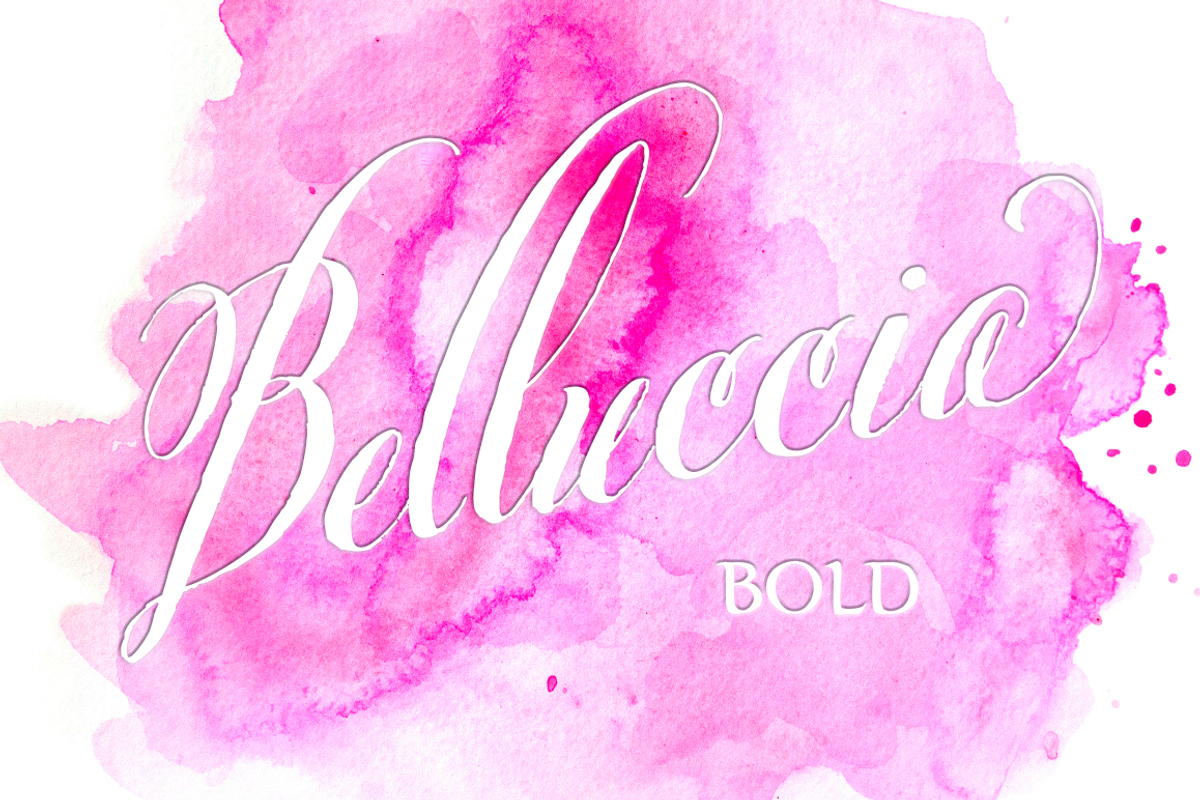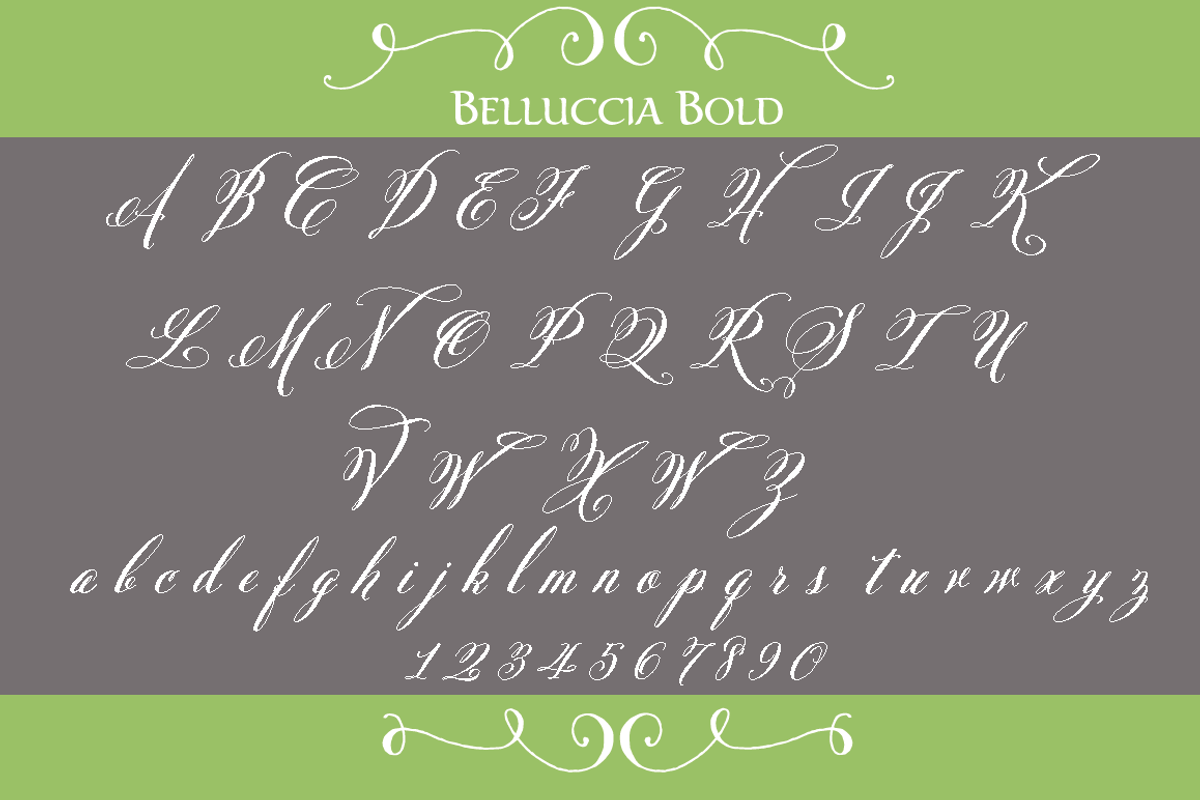
Belluccia Bold Font
Belluccia Bold Font by Debi Sementelli is a font selected for branding, posters, packaging, typography.
- Belluccia contains a total of 408 glyphs including one version of the Belluccia font alphabet and a basic set of flourishes and ornaments.
Why Belluccia Bold Font is worth a look
Belluccia Bold Font by Debi Sementelli fits naturally into Branding, posters, packaging, typography.